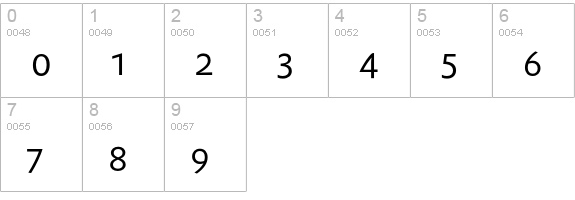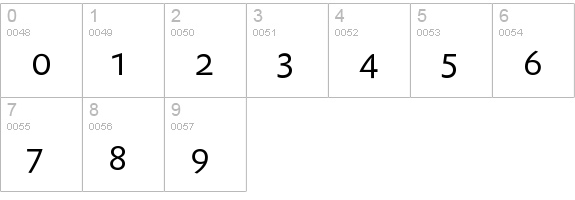
DTLProkyonTCapsLight Font Details
DTLProkyonTCapsLight is a modern and elegant font that exudes sophistication and style. Its clean lines and sharp edges make it perfect for conveying a sense of professionalism and class in any design project. This font is ideal for use in headings, titles, and other display purposes where a touch of refinement is desired. The beauty of DTLProkyonTCapsLight lies in its simplicity and versatility. Whether you're designing a logo, creating a poster, or working on a branding project, this font will elevate your work and give it a polished and polished look. Its timeless appeal makes it a go-to choice for designers looking to make a statement with their typography. Best of all, DTLProkyonTCapsLight is available for free download at FontsMarket.com. This means you can easily access this high-quality font and incorporate it into your projects without any cost. Don't miss out on the opportunity to enhance your designs with the sleek and sophisticated DTLProkyonTCapsLight font. Download it today and elevate your typography game!